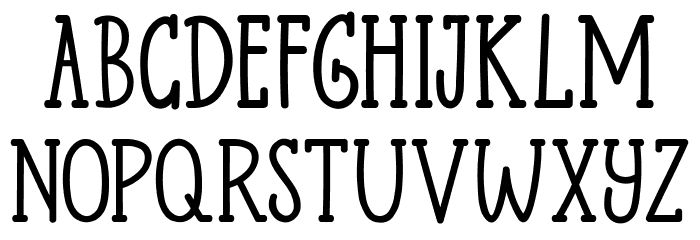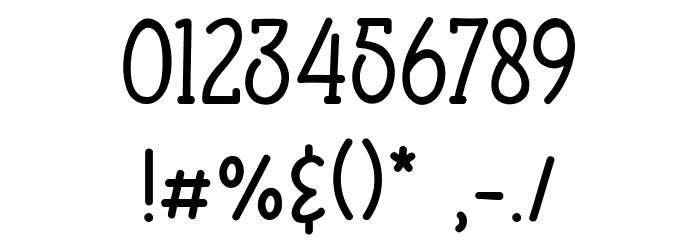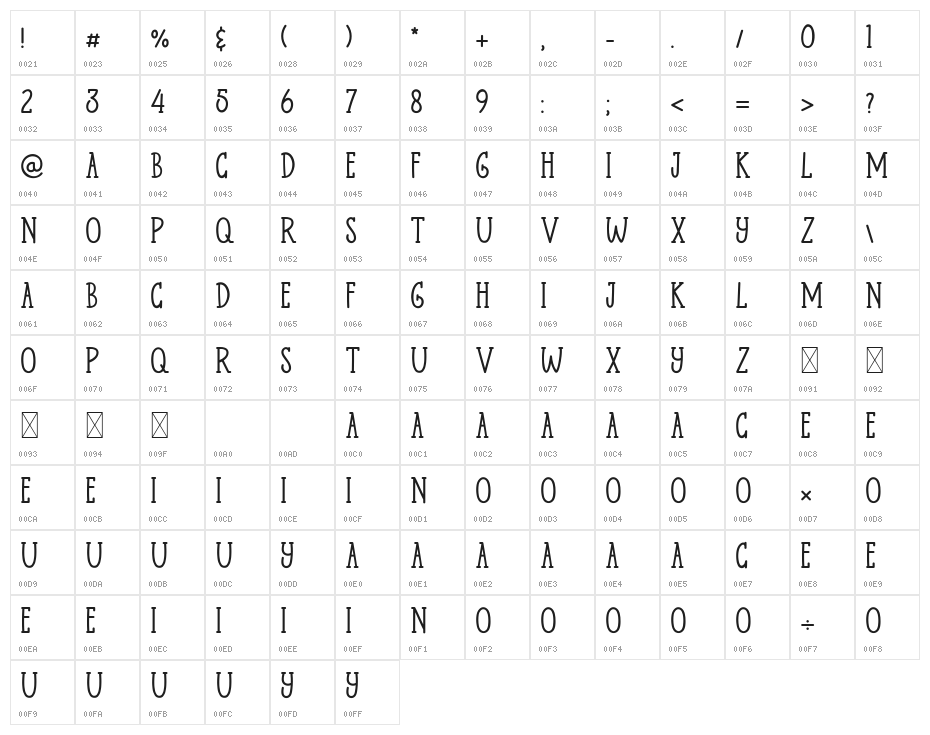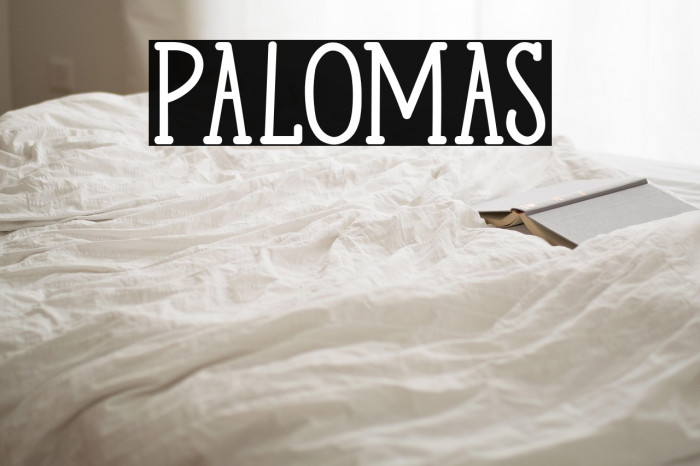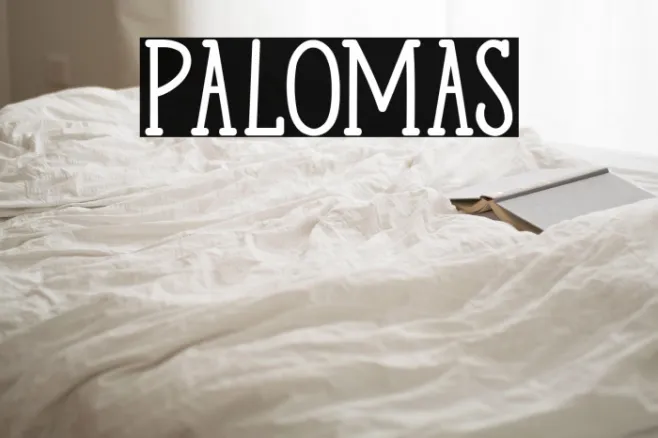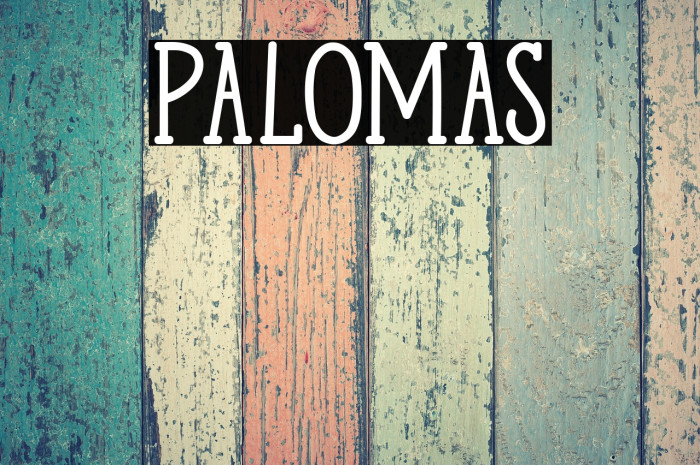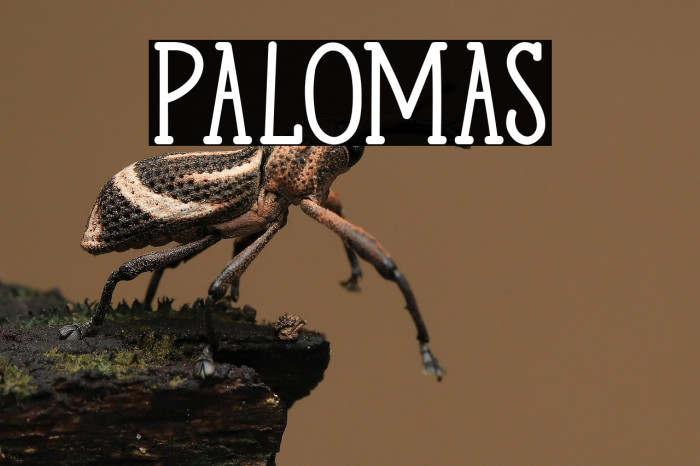
Palomas Font
This font features a playful and whimsical design, characterized by its rounded and slightly irregular letterforms. The strokes are consistent in width, giving it a uniform appearance, while the slight curves and playful angles add a touch of personality. The uppercase letters are tall and narrow, with a slight slant that adds to the dynamic feel. The lowercase letters maintain the same playful style, with rounded edges and a consistent stroke width. Numbers and special characters are designed to match the overall aesthetic, making this font versatile for various uses. The overall look is friendly and approachable, making it suitable for creative and informal projects.
A playful and whimsical font with rounded, consistent strokes and a friendly appearance.
- Font: Palomas
- Proposed Projects: Ideal for children's books, playful branding, greeting cards, and creative posters.
- Overall Style: Playful
- Use Case: Headlines, Logos, Creative projects